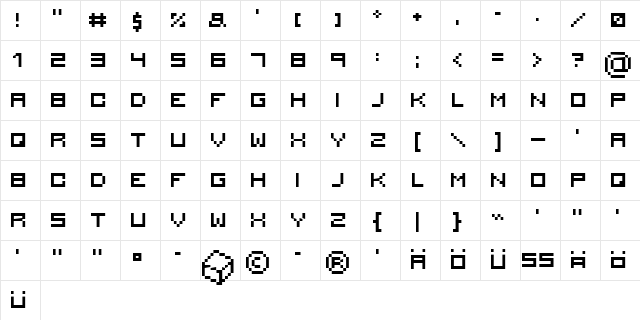
serious2 Regular
Design Context for serious2
serious2 is a composed and adaptable typeface that performs quietly and consistently across a wide range of design contexts.